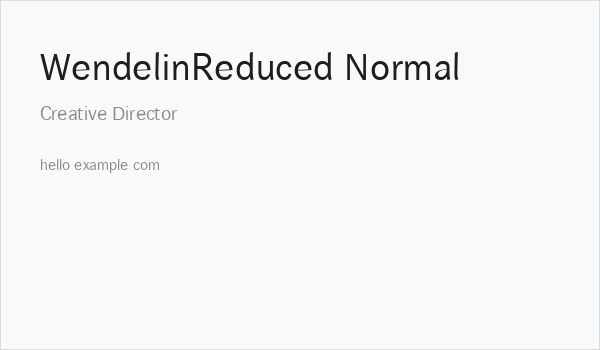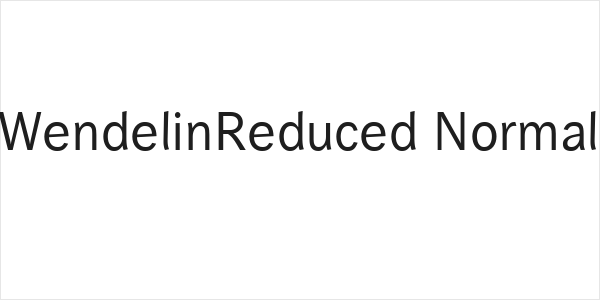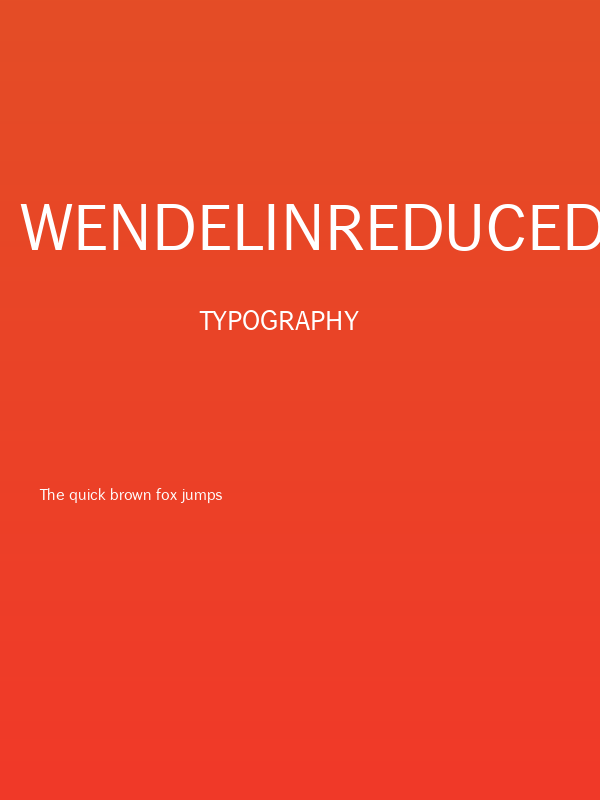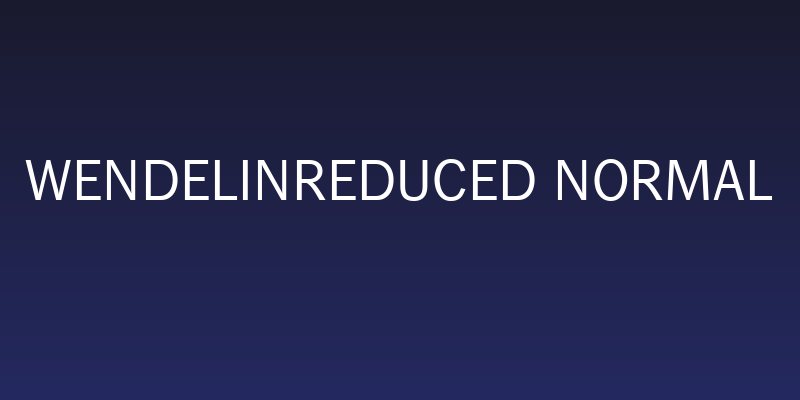
WendelinReduced-Normal Font
WendelinReduced-Normal Description
This font features a clean and modern sans-serif design, characterized by its simplicity and clarity. The letters are well-proportioned with a consistent stroke width, giving it a balanced and harmonious appearance. The uppercase and lowercase letters are distinct, with the lowercase having a slightly rounded quality that adds a touch of friendliness to the overall look. The numerals are clear and easy to read, making them suitable for various applications. The special characters are designed to match the overall style, ensuring consistency across all glyphs.
| Use Case | Body text, User interfaces, Editorial content |
| Proposed Projects | Ideal for web design, corporate branding, user interfaces, and editorial content. |